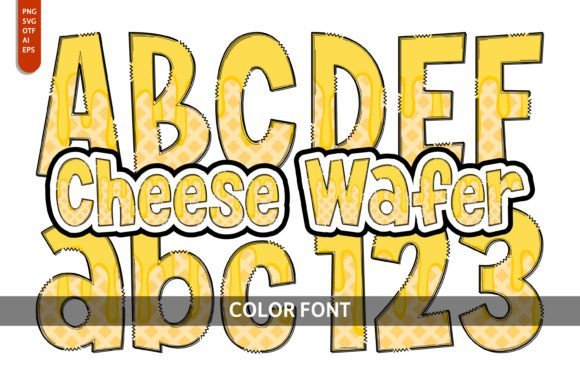
The Perfect Font for Whimsical Designs: Unwrapping the Magic of Cheese Wafer Font
Have you ever sat at your desk, staring at a blank page, and thought to yourself, “What font can I use to make this design truly pop?” For many designers, finding the right font can be a daunting task, but what if I told you there’s a font that can bring a touch of magic to your creations? Enter Cheese Wafer Font, a playful and artistic typeface designed to capture the imagination of young audiences.
With its whimsical feel and colorful flair, Cheese Wafer Font is a valuable addition to any designer’s toolkit. Whether you’re creating a children’s book, a poster, or a greeting card, this font is sure to add a touch of personality to your design. As a color font (Opentype-SVG), it’s compatible with a range of software, including PhotoShop, Illustrator, and Silhouette, making it a versatile choice for designers of all levels.
Cheese Wafer Font Key Features
- Unique Characteristics: The Cheese Wafer Font is a playful, hand-drawn font with a distressed texture, giving it a unique and quirky look that is perfect for creative projects, such as invitations, posters, and social media graphics.
Designer Review: Cheese Wafer Font
Overall, I think the Cheese Wafer Font has some great qualities that make it a unique addition to any design project. ✨ The font’s playful, whimsical feel is sure to capture the attention of anyone who sees it. The way the letters curve and flow together is truly eye-catching.
The Cheese Wafer Font is also incredibly versatile. ✨ It can be used for a wide range of projects, from children’s books to food packaging, and it’s sure to add a touch of personality to any design. The font’s fun, lighthearted feel makes it perfect for projects that need to convey a sense of joy and playfulness.
However, there are a few limitations to the Cheese Wafer Font that should be taken into consideration. ⚠️ One of the biggest issues is the font’s lack of legibility at smaller font sizes. This can make it difficult to read, especially for older adults or those with visual impairments.
Another issue is the font’s limited character set. ⚠️ This can make it difficult to use the font for projects that require a wide range of special characters or symbols.
Overall, I think the Cheese Wafer Font is a great addition to any design project. While it has its limitations, the font’s unique personality and versatility make it a great choice for projects that need to convey a sense of fun and playfulness.
Recommendations
I would recommend using the Cheese Wafer Font for projects that require a fun, lighthearted feel. It’s perfect for children’s books, food packaging, and other projects that need to convey a sense of joy and playfulness.
- Use the Cheese Wafer Font for projects that require a fun, lighthearted feel.
- Avoid using the font for projects that require high legibility or a wide range of special characters.
- Use the font in combination with other fonts to add depth and interest to your design.
What is the character set and language support for the Cheese Wafer Font?
The Cheese Wafer Font includes a comprehensive character set that supports Latin, Greek, and Cyrillic scripts. It also includes support for various languages, including English, Spanish, French, German, Italian, and many others. The font’s character set includes a wide range of punctuation, symbols, and special characters.